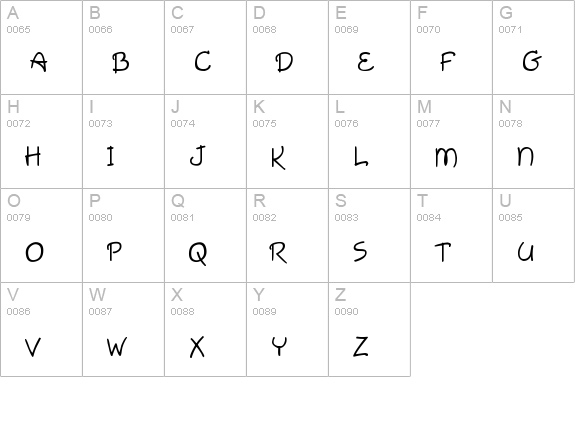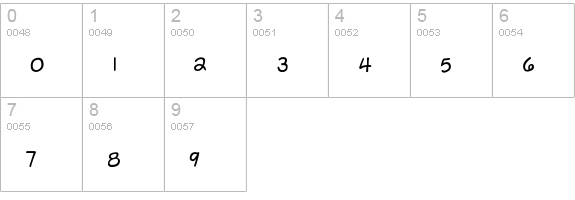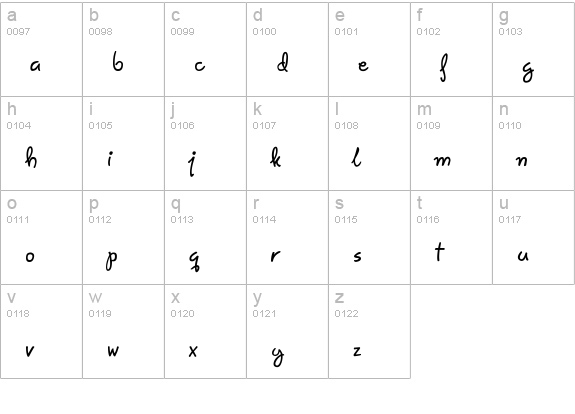
Gisele Script Font Details
Gisele Script is a beautifully crafted font that exudes elegance and sophistication. Its flowing lines and delicate curves give any design a touch of grace and charm. Whether used for formal invitations, branding materials, or decorative purposes, Gisele Script adds a touch of refinement to any project. The best part about Gisele Script is that it is completely free to download at FontsMarket.com. This means that you can elevate your designs without having to worry about breaking the bank. Don't miss out on this opportunity to enhance your projects with the stunning Gisele Script font. Download it today and start adding a touch of luxury to your creations.